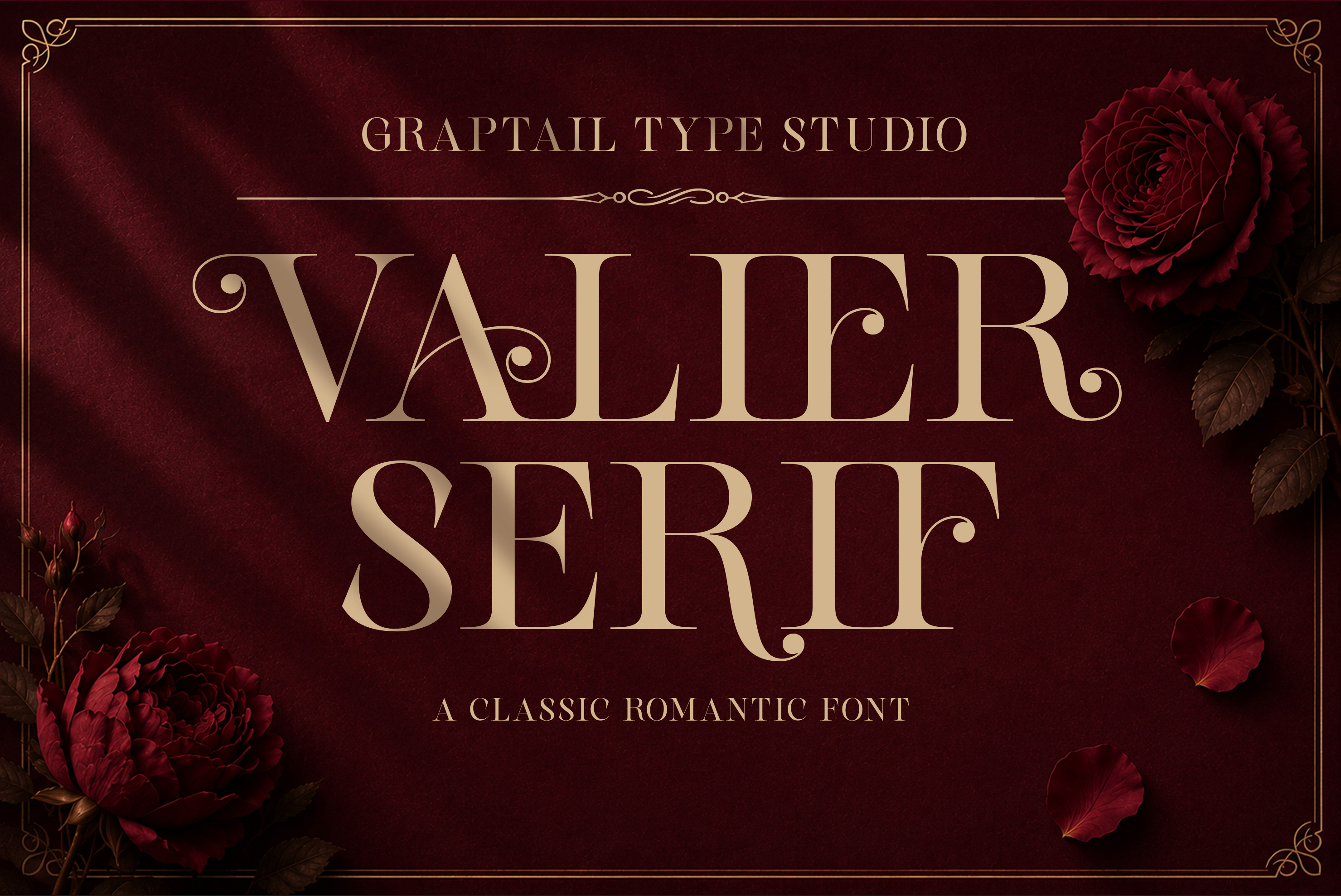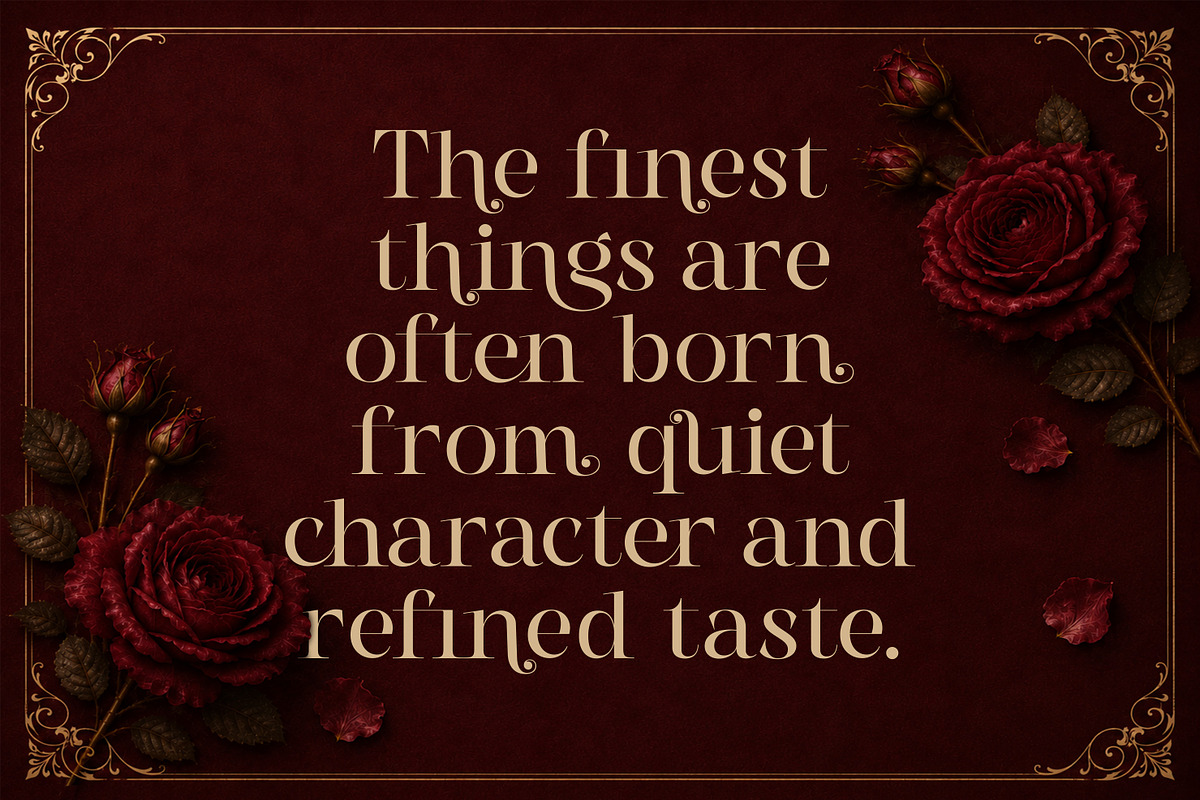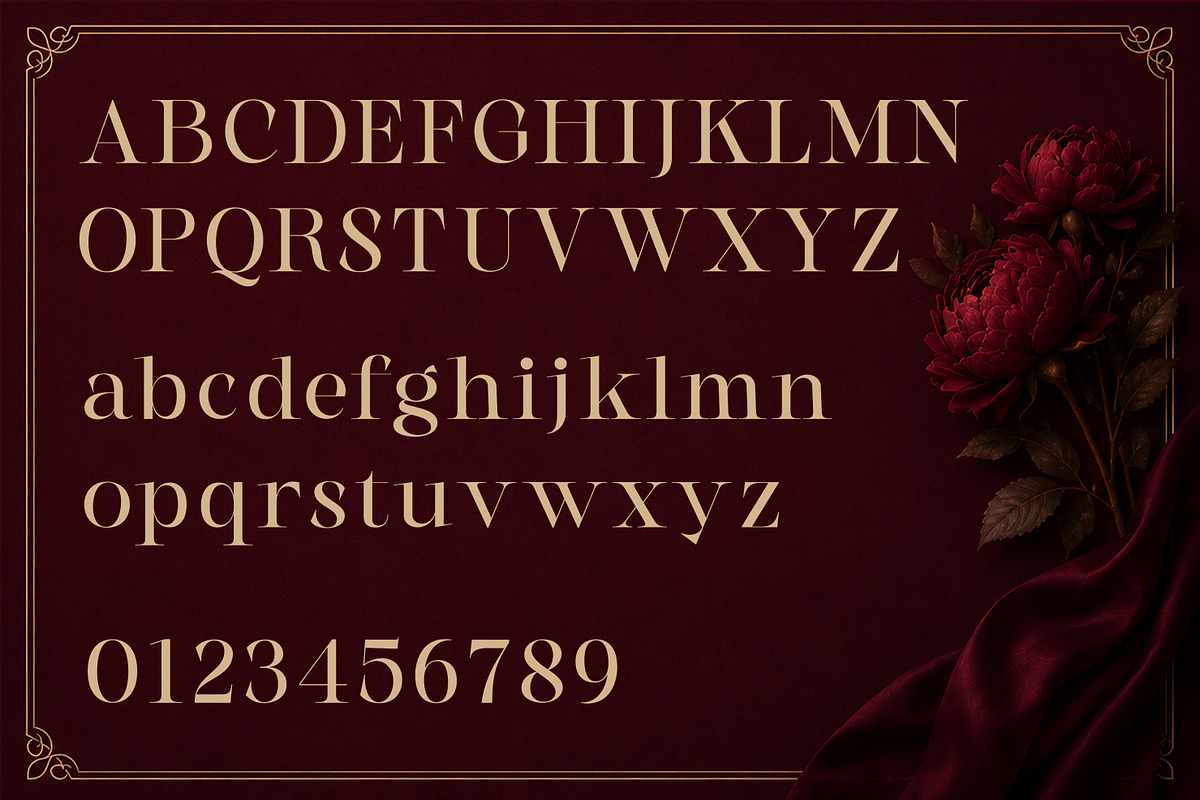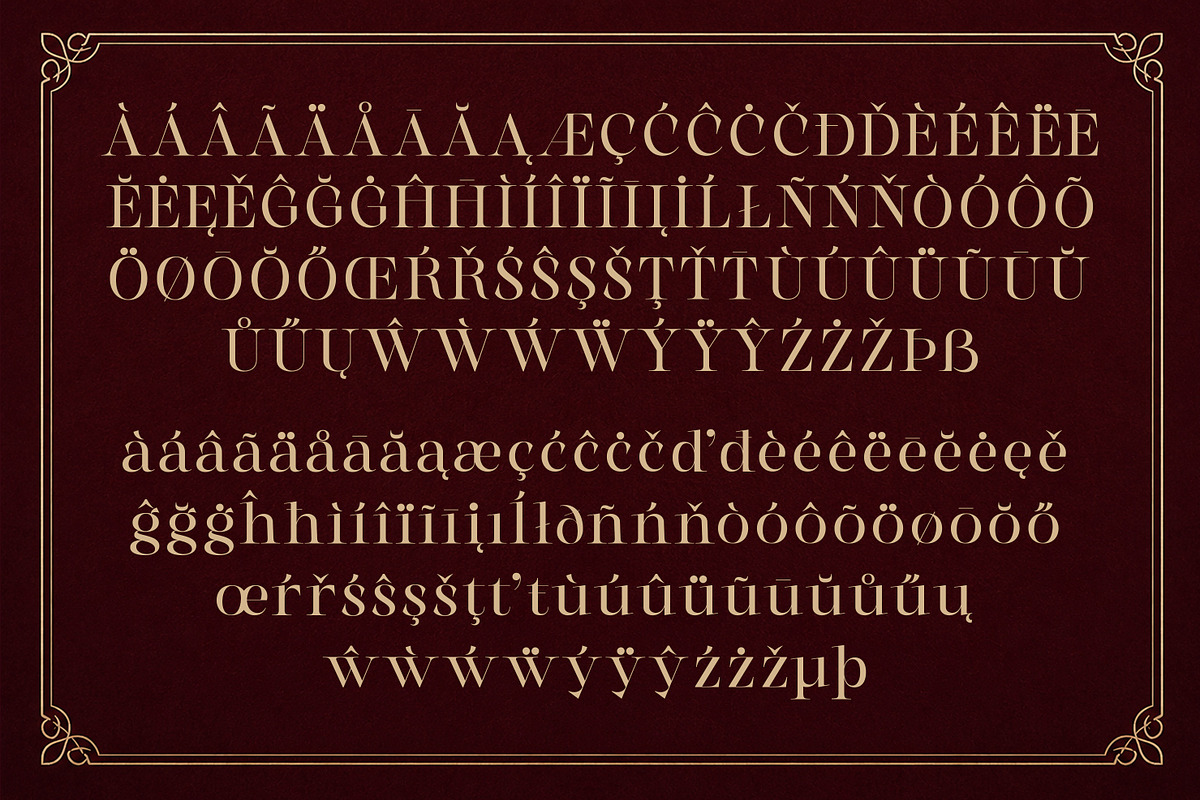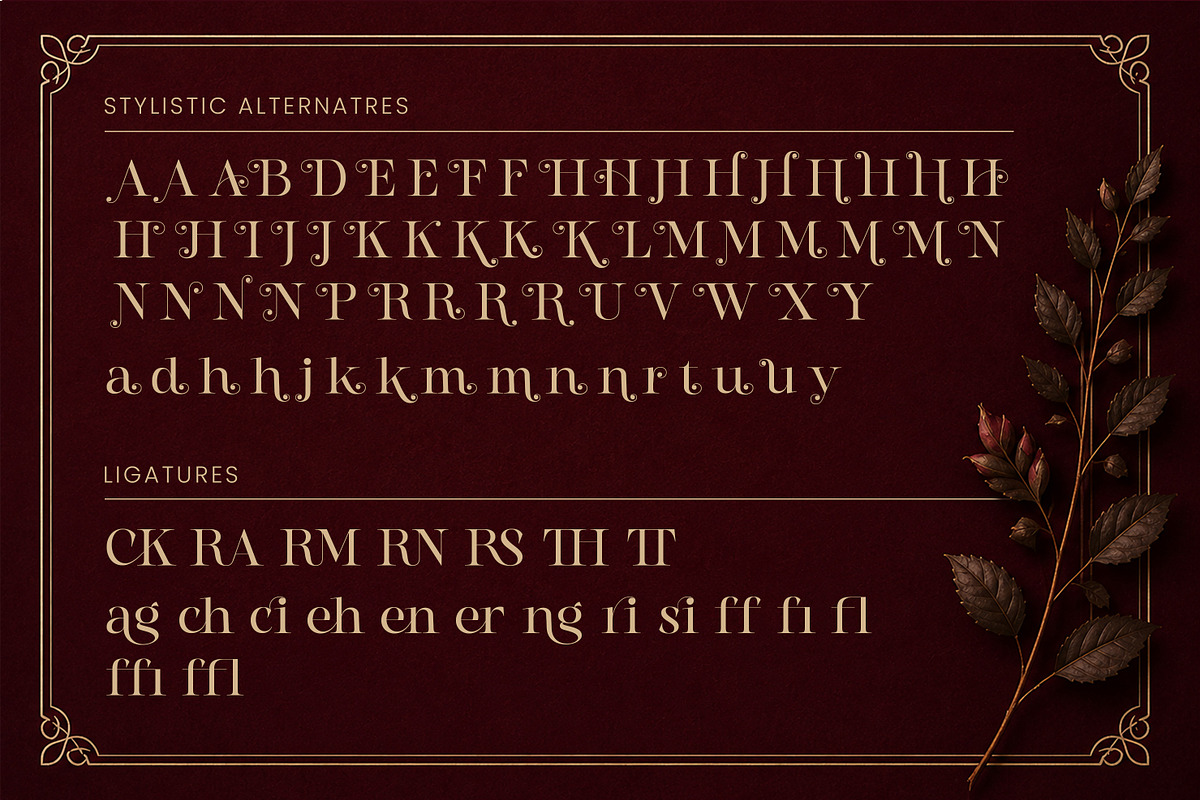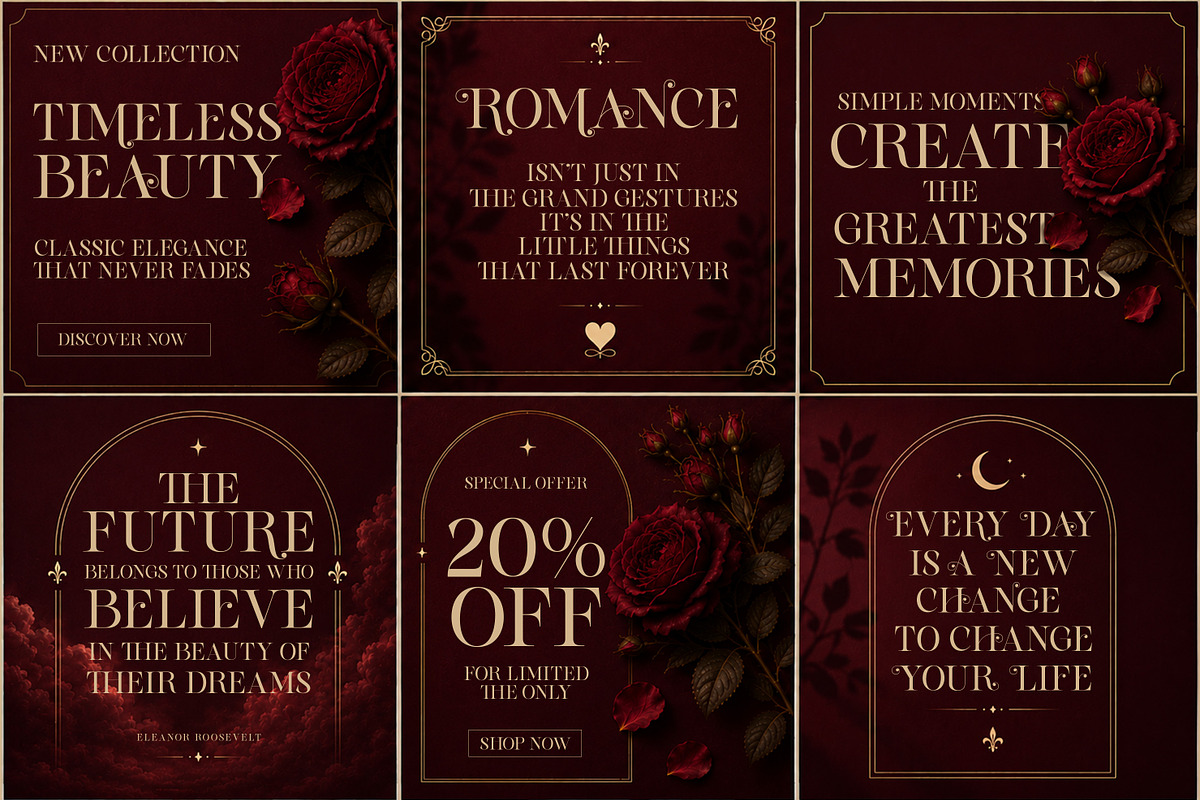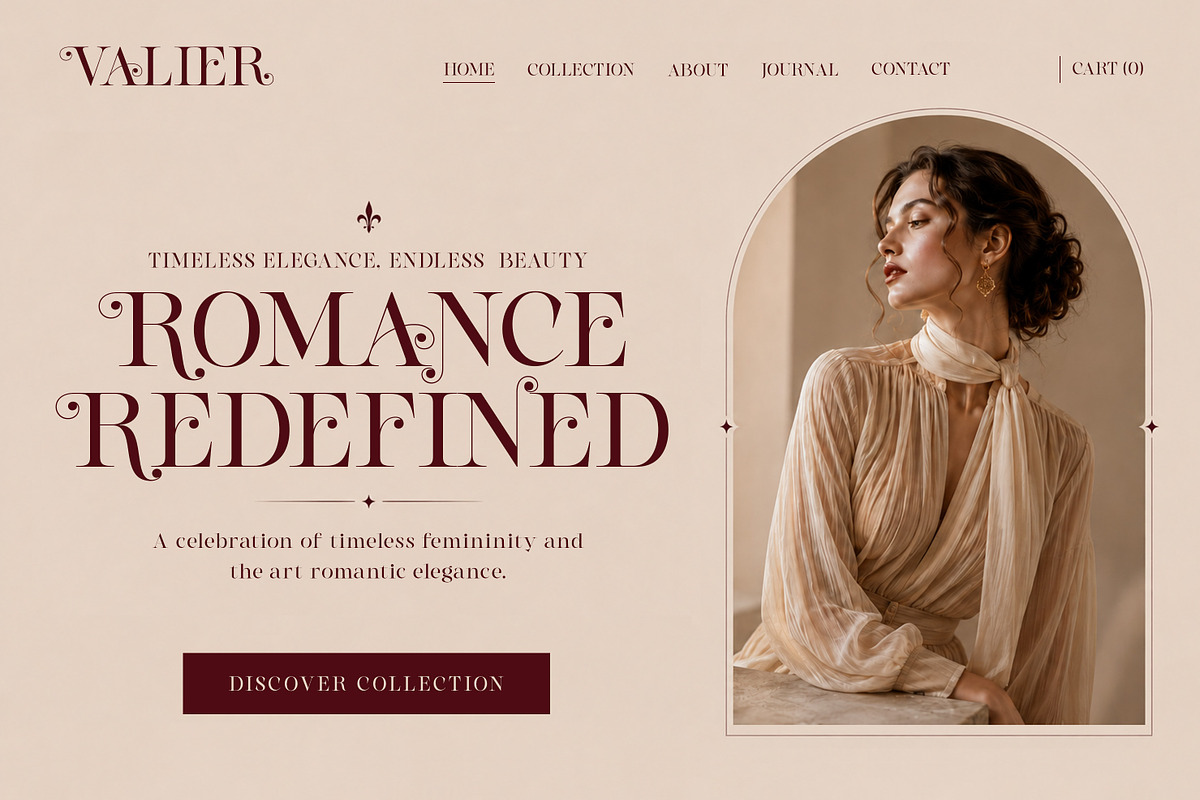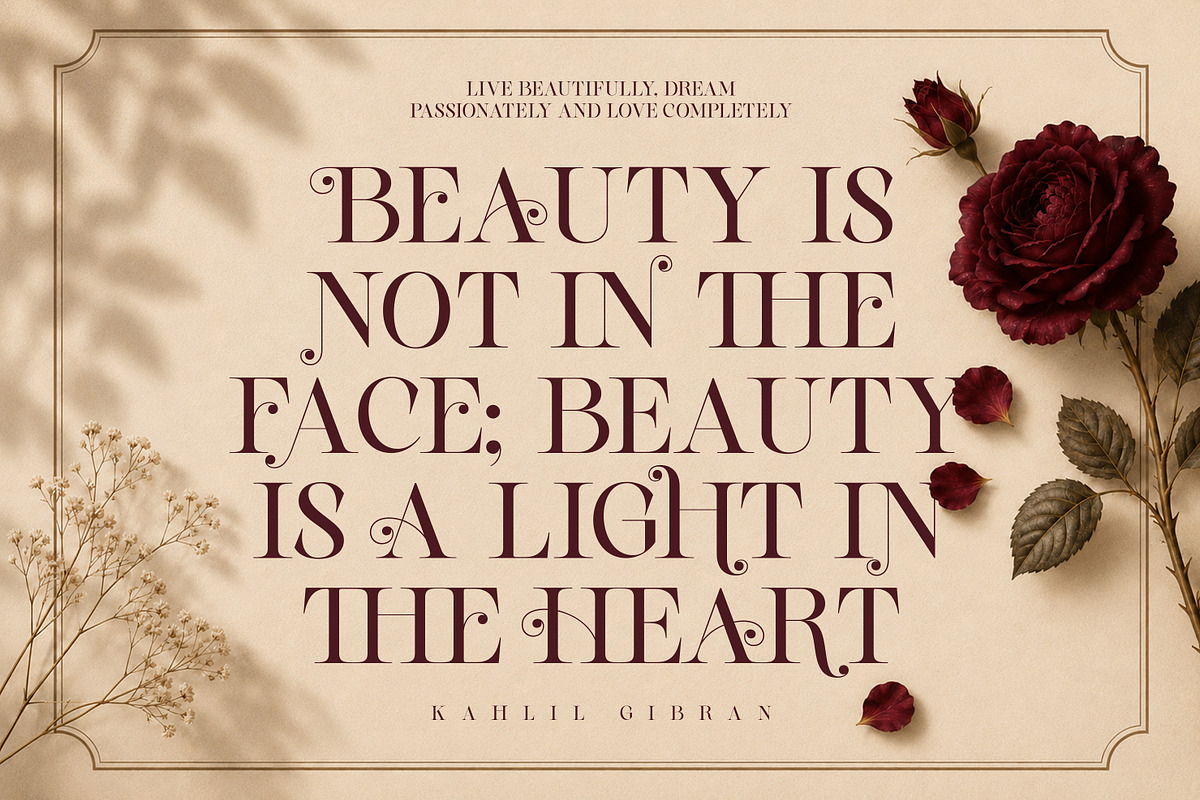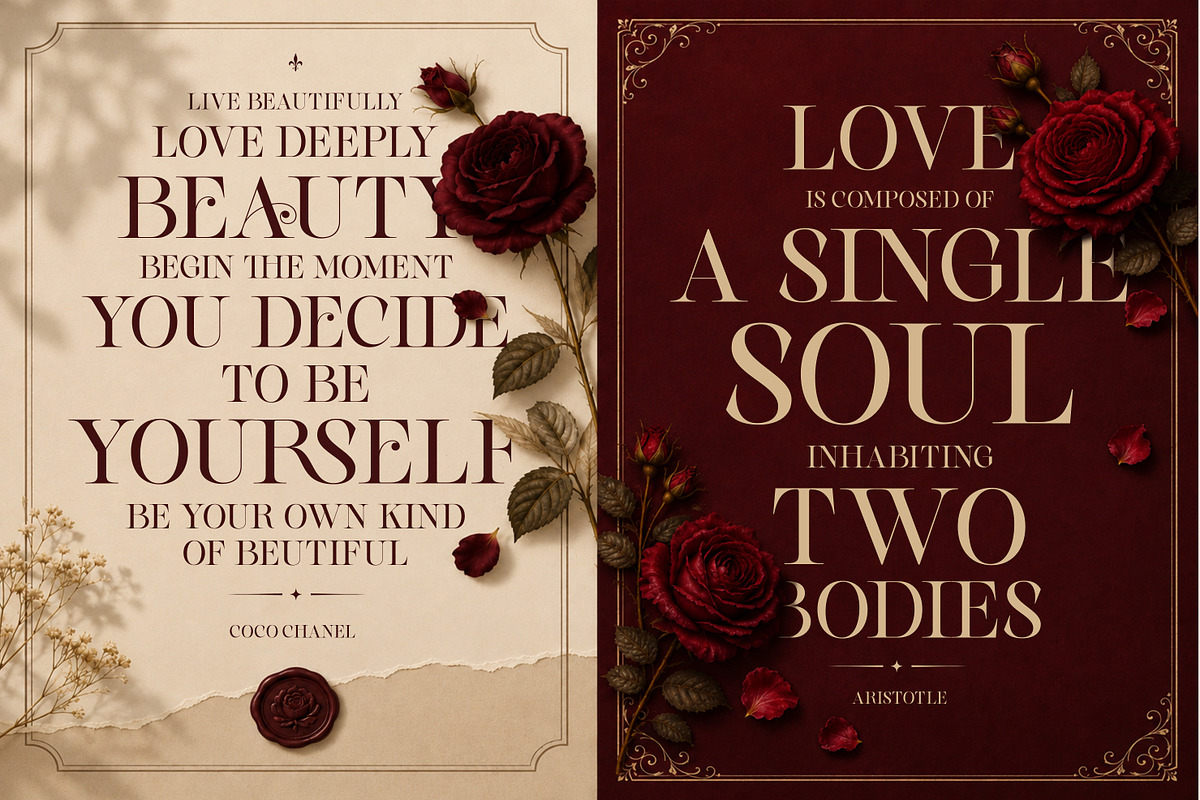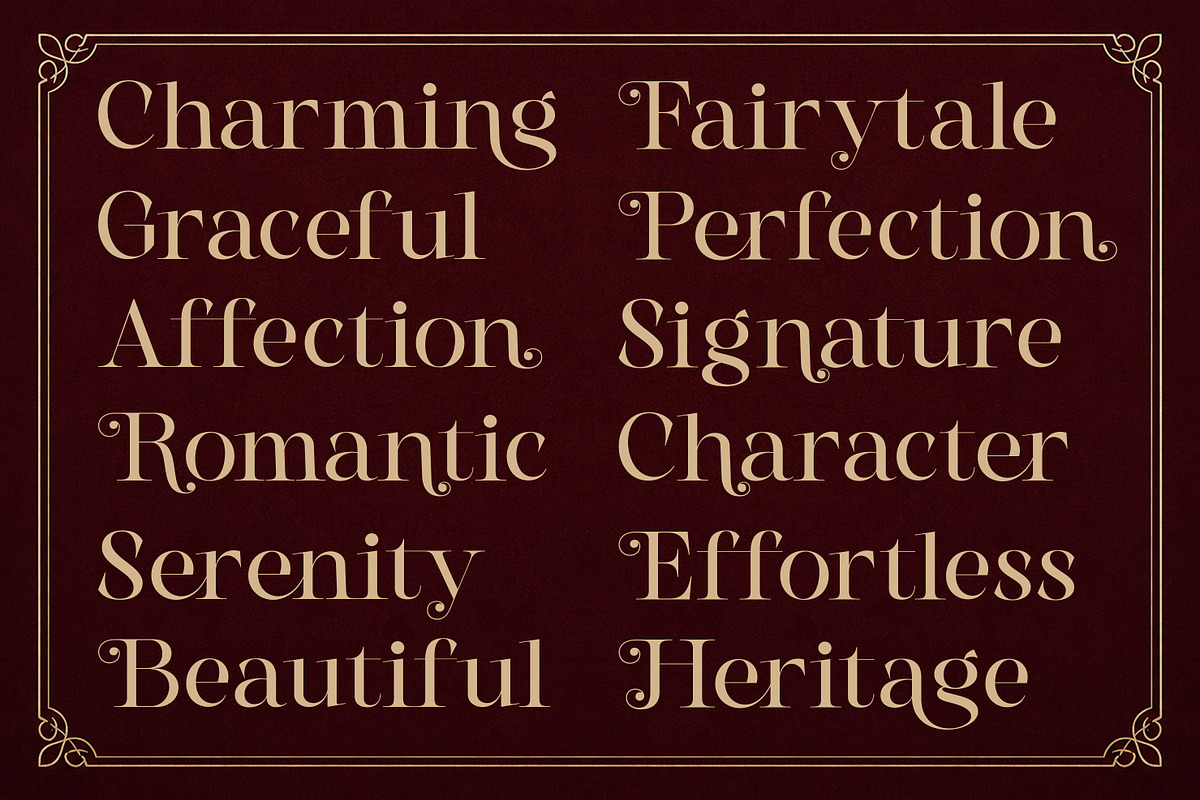
Gts Valier | Romantic Font
Valier Serif is a timeless classic serif font crafted to bring elegance, romance, and sophistication into every design. Inspired by vintage editorial typography, luxury branding, and romantic aesthetics, Valter Serif combines graceful letterforms with beautiful ligatures and stylish alternates to create a refined visual experience.
Whether you're designing wedding invitations, luxury logos, fashion editorials, packaging, social media content, or elegant quote posters, Valter Serif adds a touch of charm and distinction to your work.